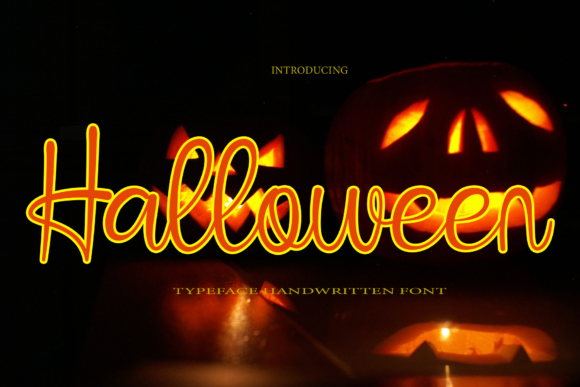
About Halloween Font
Halloween is a sweet and simple lettered handwritten font, featuring a lovely flow. It is defined by smooth curves and is perfect for fashion branding or editorial designs. Add it confidently to your projects, and you will love the results.